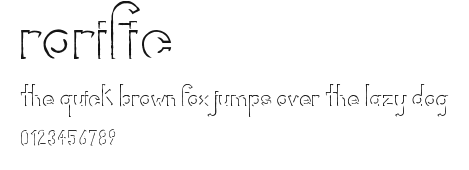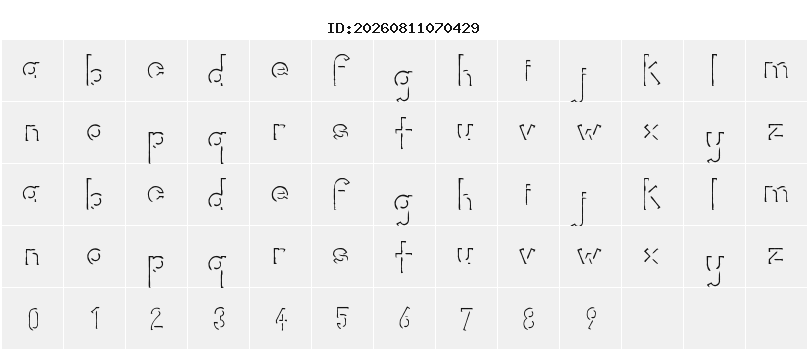
• Font Name: Rorific
• Full Font Name: Rorific
About Rorific.ttf
Rorific.ttf is a modern, elegant sans-serif font designed for ultimate readability and visual harmony. Perfect for branding, headlines, web design, and print materials.